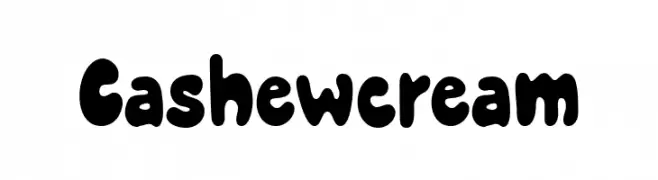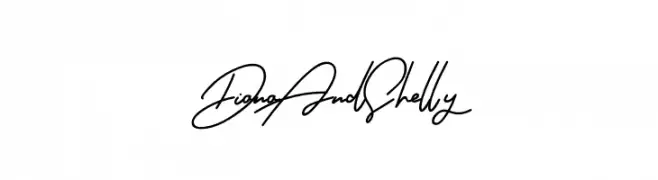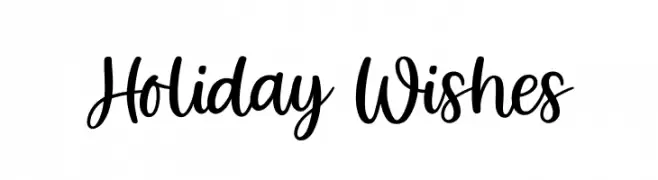
A bold, angular, and italicized font with a dynamic, futuristic style.
A bold, dynamic script font with thick, extruded letterforms.
A modern engraved font with a diagonal line pattern and cursive lowercase letters.
An elegant script font with an engraved, diagonal line pattern.
A playful, cursive font with a festive, handwritten style.
An elegant, flowing script font with a cursive, handwritten style.
A bold, playful font with thick, rounded characters and a hand-drawn feel.
A bold, italic font with a dynamic and energetic style.
A bold, geometric font with a modern, industrial style.
Bold, oblique font with sharp angles and thick strokes.